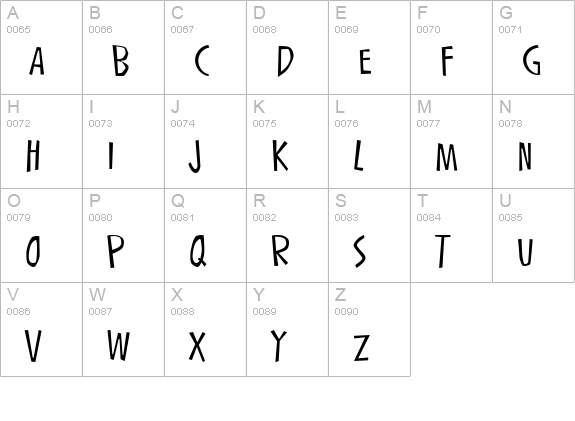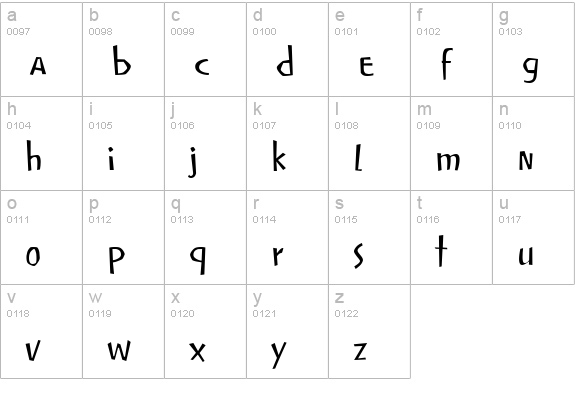
SplintHmk Font Details
SplintHmk is a mesmerizing font that combines modern aesthetics with a touch of elegance. Designed with utmost precision and care, this font is perfect for adding a unique and sophisticated touch to your designs. With its clean lines and balanced letterforms, SplintHmk exudes a sense of professionalism and refinement. One of the most remarkable features of SplintHmk is that it is available for free! Yes, you heard it right. This incredible font can be freely downloaded from FontsMarket.com, making it accessible to everyone. Whether you're a professional designer, a student, or simply someone who appreciates beautiful typography, SplintHmk offers you the opportunity to enhance your projects without any cost. The versatility of SplintHmk knows no bounds. From logos and branding materials to invitations and social media graphics, this font effortlessly adapts to any context. Its timeless appeal makes it suitable for both print and digital designs, ensuring that your creations will stand the test of time. With a wide range of weights and styles to choose from, SplintHmk provides endless possibilities for creative expression. Whether you prefer a bold and impactful look or a more delicate and refined approach, this font has got you covered. Its extensive character set also includes multilingual support, allowing you to cater to a global audience. So why wait? Unlock the potential of your designs with SplintHmk, the free font that combines style, elegance, and accessibility. Head over to FontsMarket.com and download this remarkable typeface today. Let your creativity soar and make a lasting impression with SplintHmk.